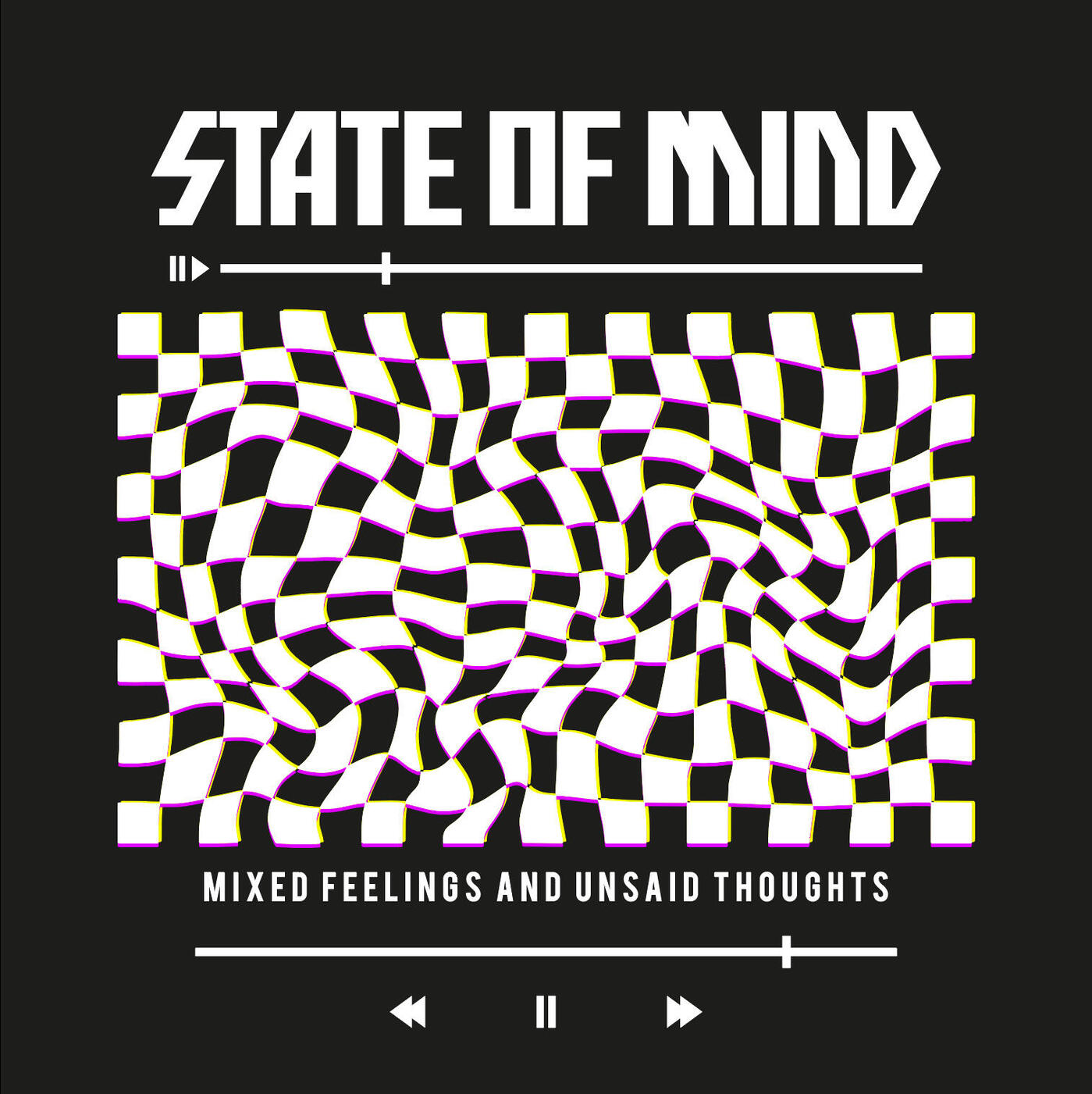
Skater or Rock Band Style Font that I'd like to use in a Snowboarding Team Graphic
I'd like to use the font shown in a graphic for a Snowboarding Team.
I ended up liking the wording style. There is no font named, and the text is converted to outlines.
I'd love to know the exact typeface name.
This style looks really familiar to me. If anyone know what company or band that was the inspiration for this design, please feel free to share. The checkers reminds me of Van tshirt styles.